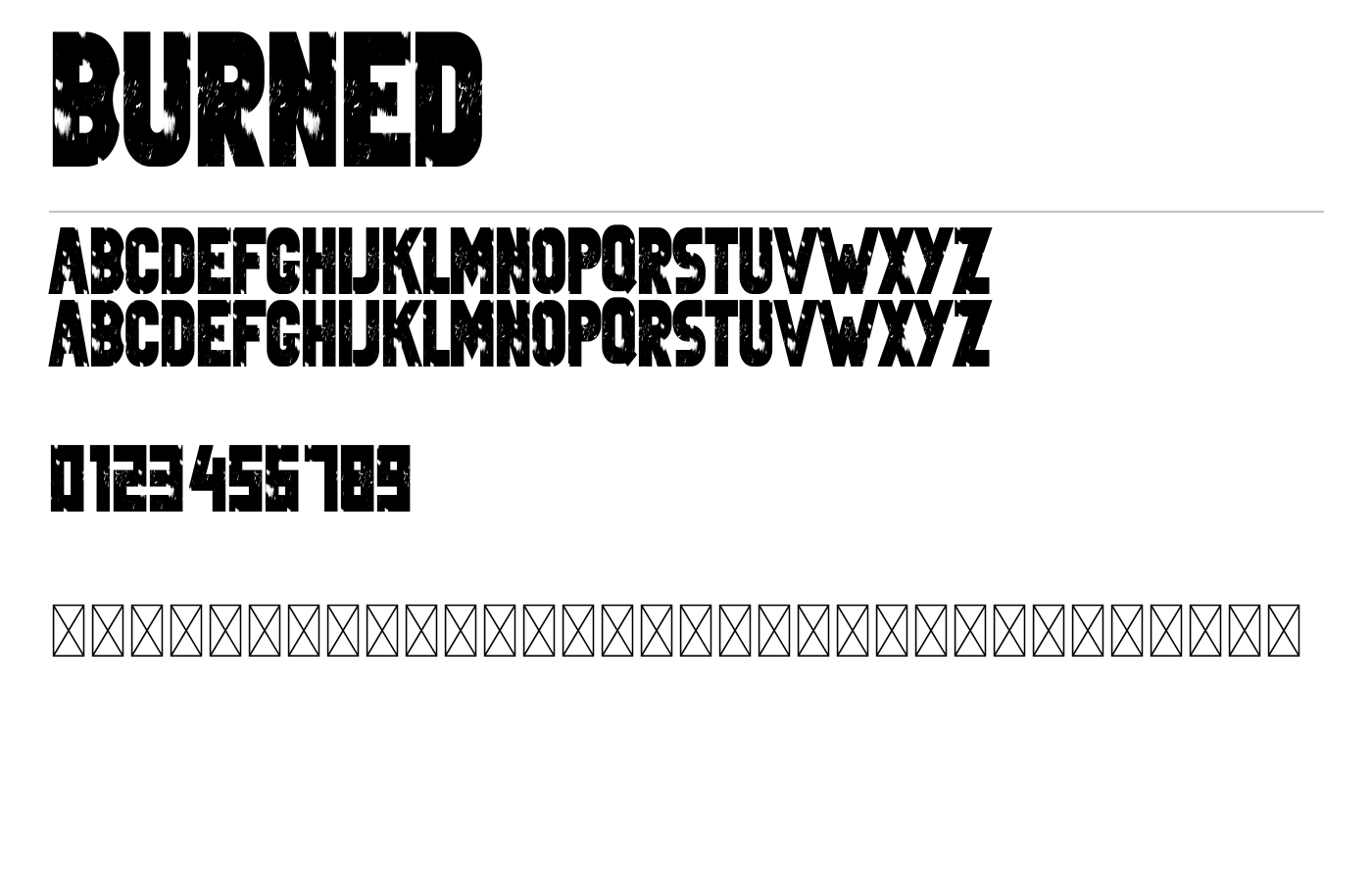
Burned is a bold, condensed sans serif font with a distressed, textured appearance that mimics the look of charred or worn surfaces. Its strong, blocky letterforms and rough edges give it a gritty, industrial feel, making it perfect for impactful headlines, posters, and designs that need a raw, edgy aesthetic. This font works well in creative branding and visual projects that aim to convey toughness and ruggedness with a modern urban vibe.
Burned Font
About Burned Font
| Font family | Burned Font |
| Designer | barurezeki10 |